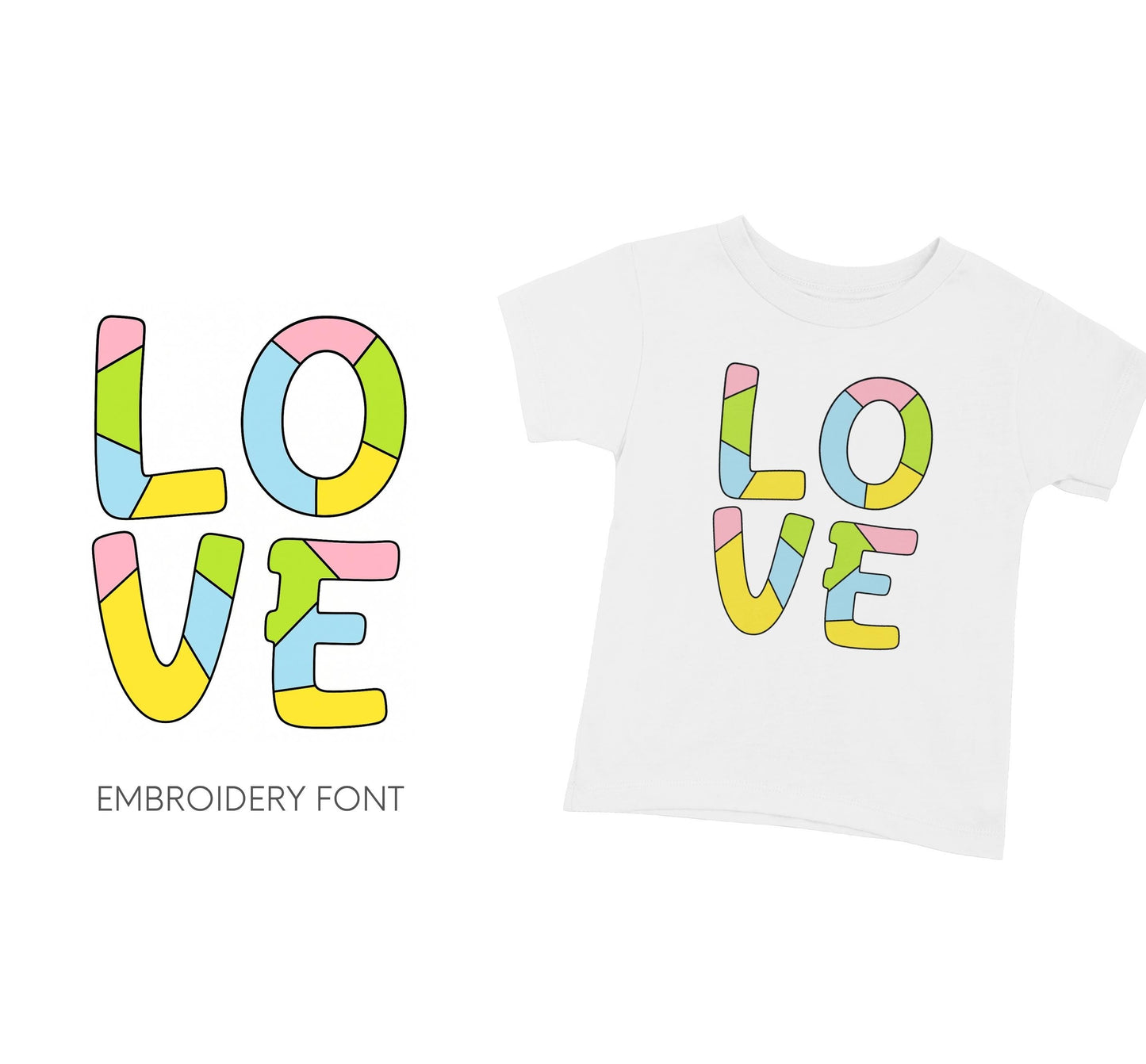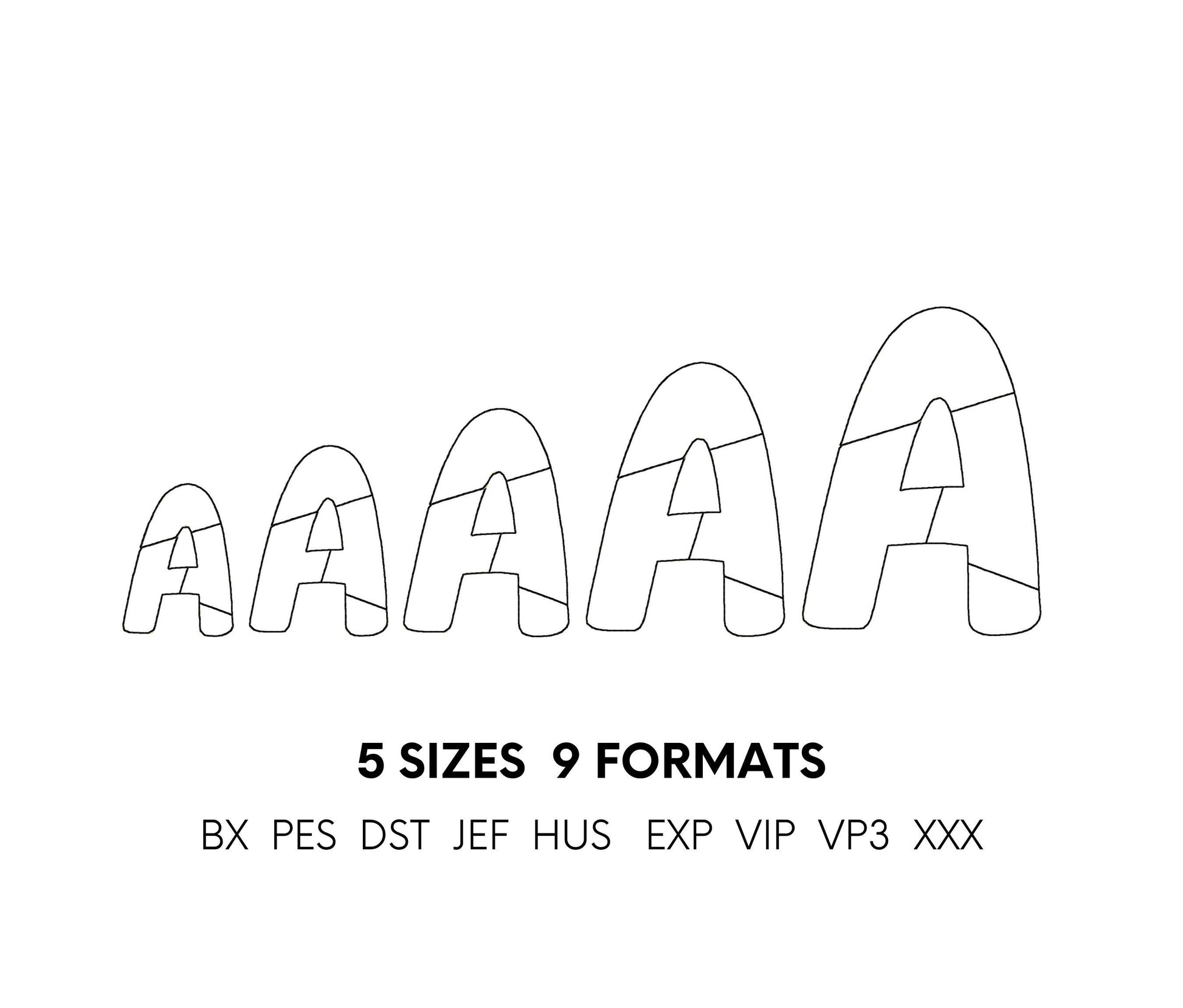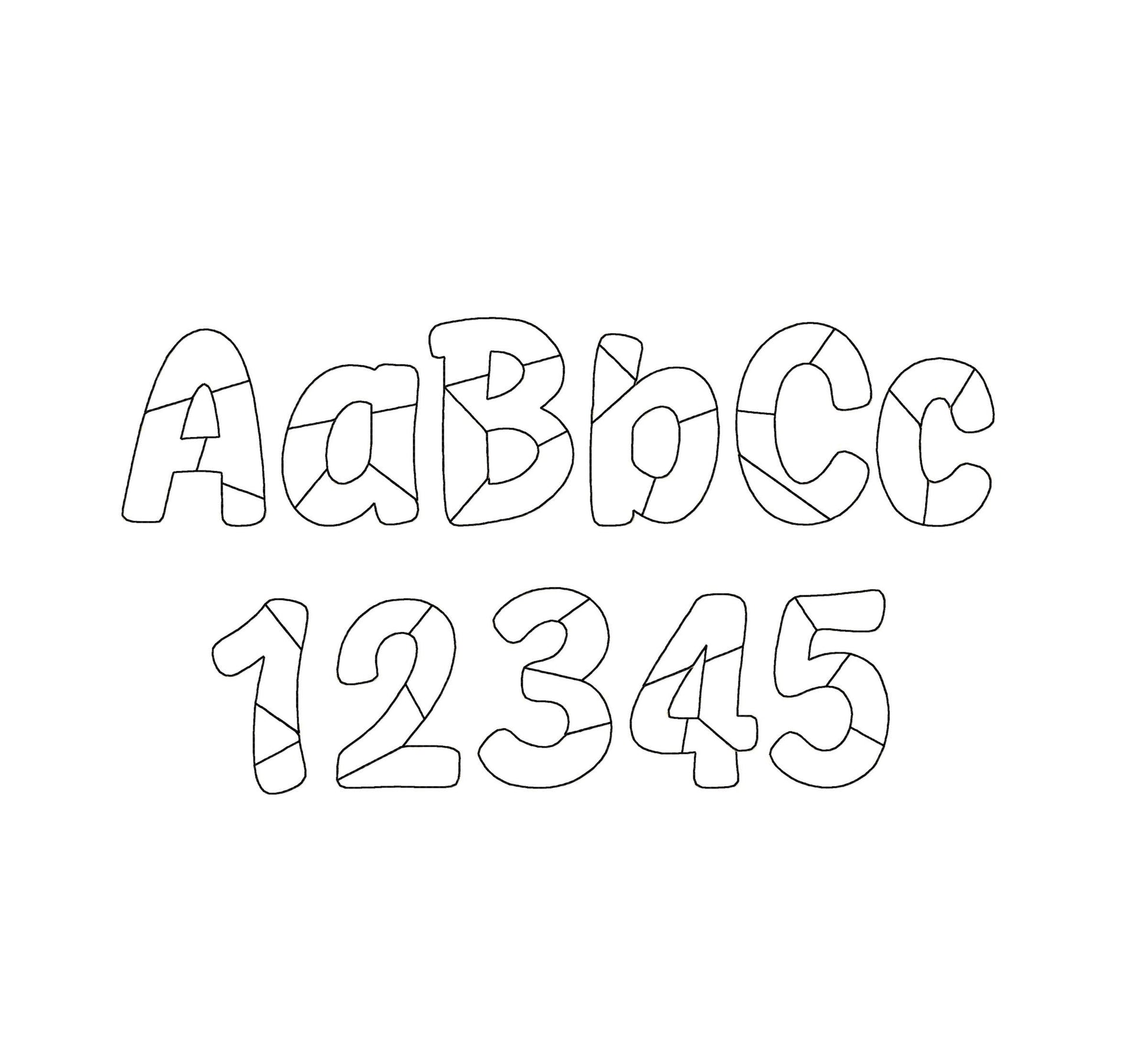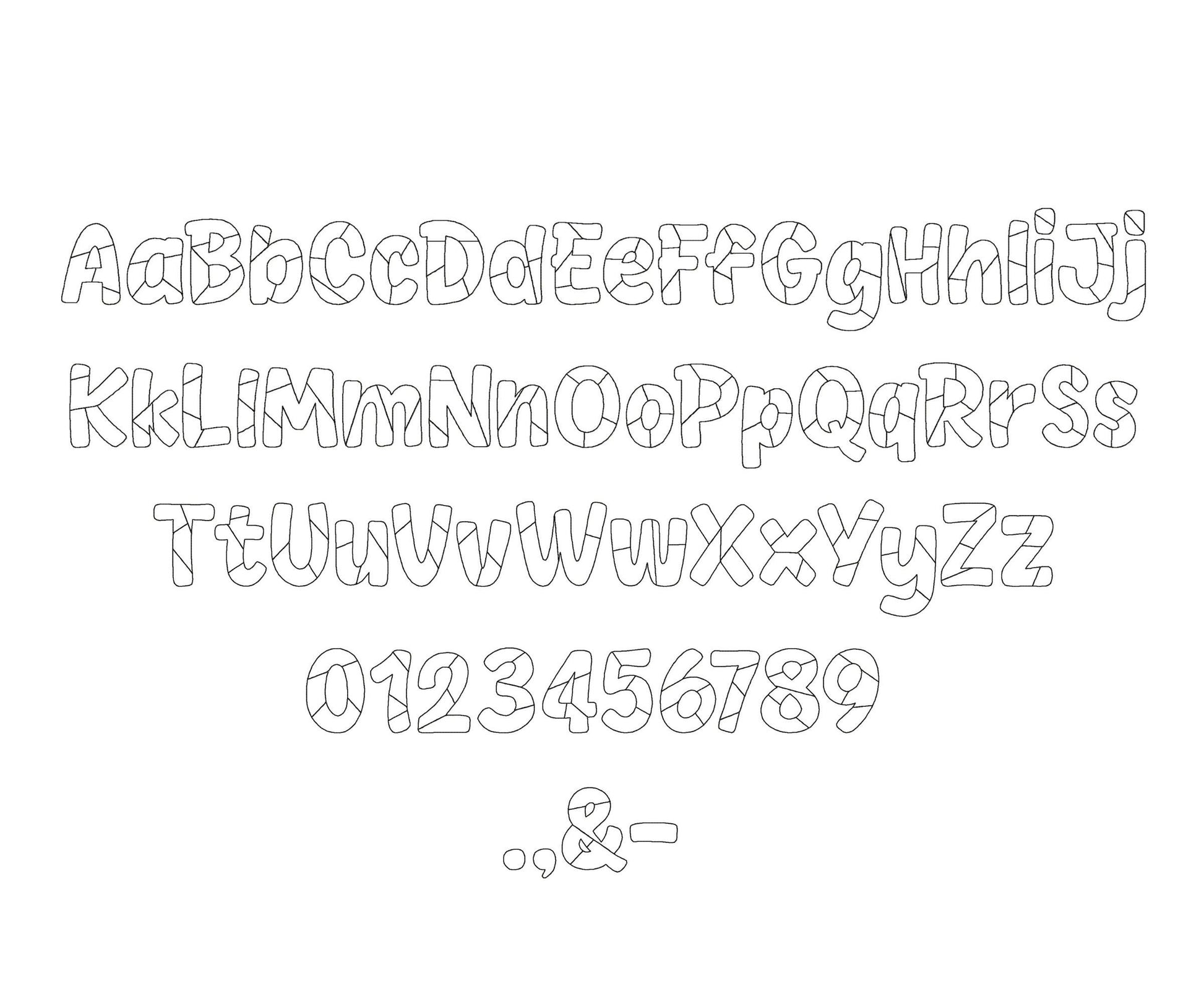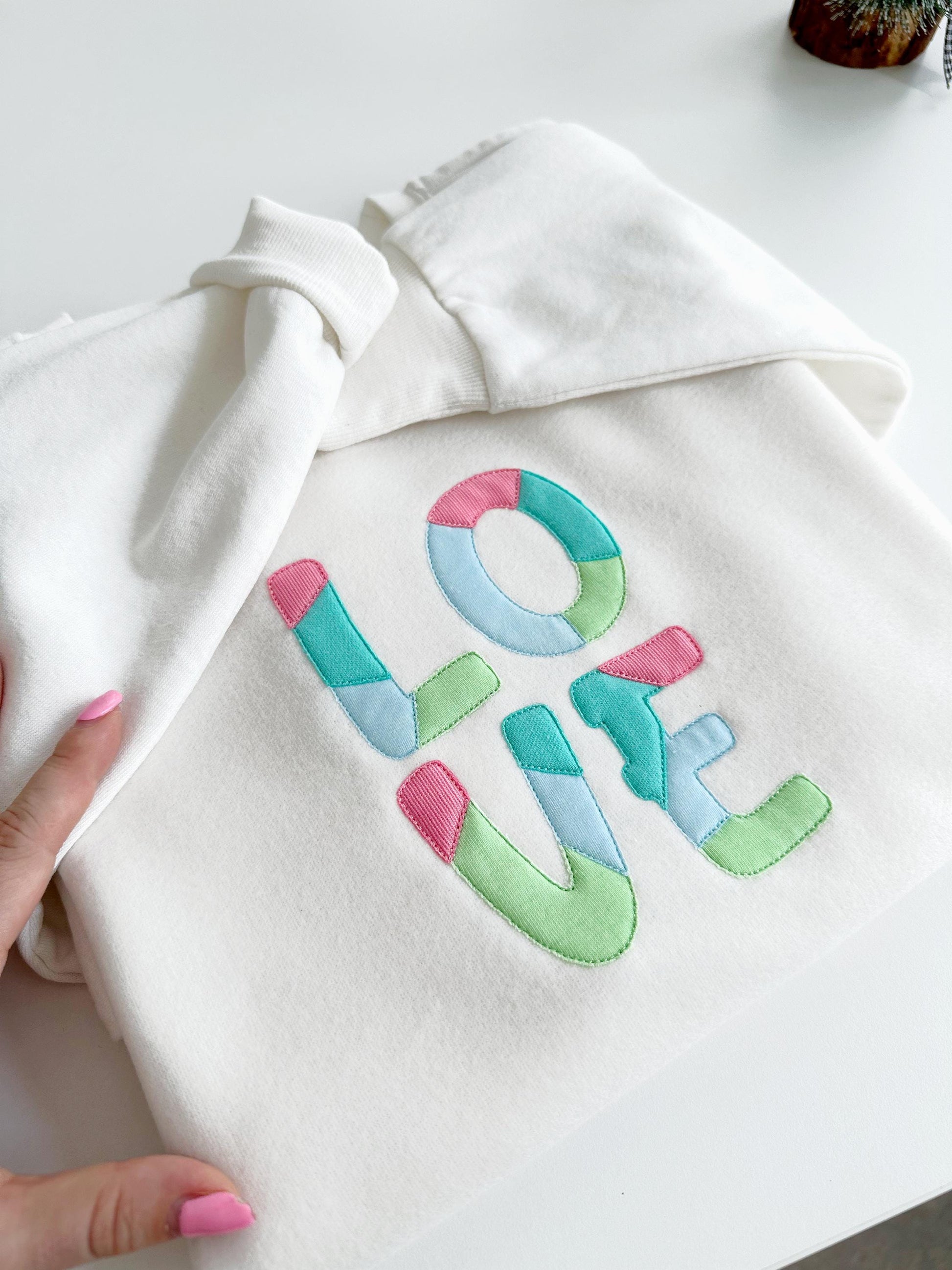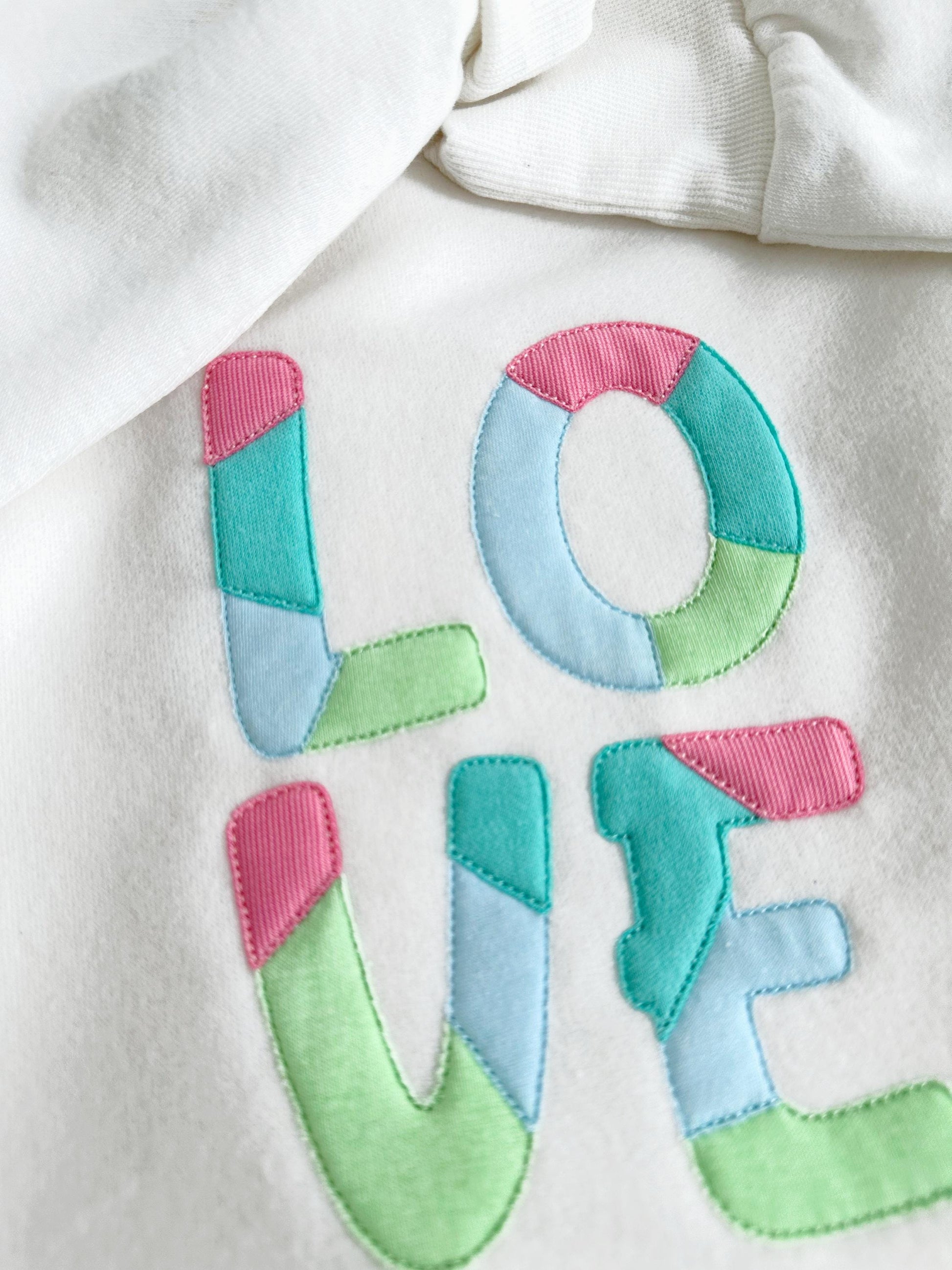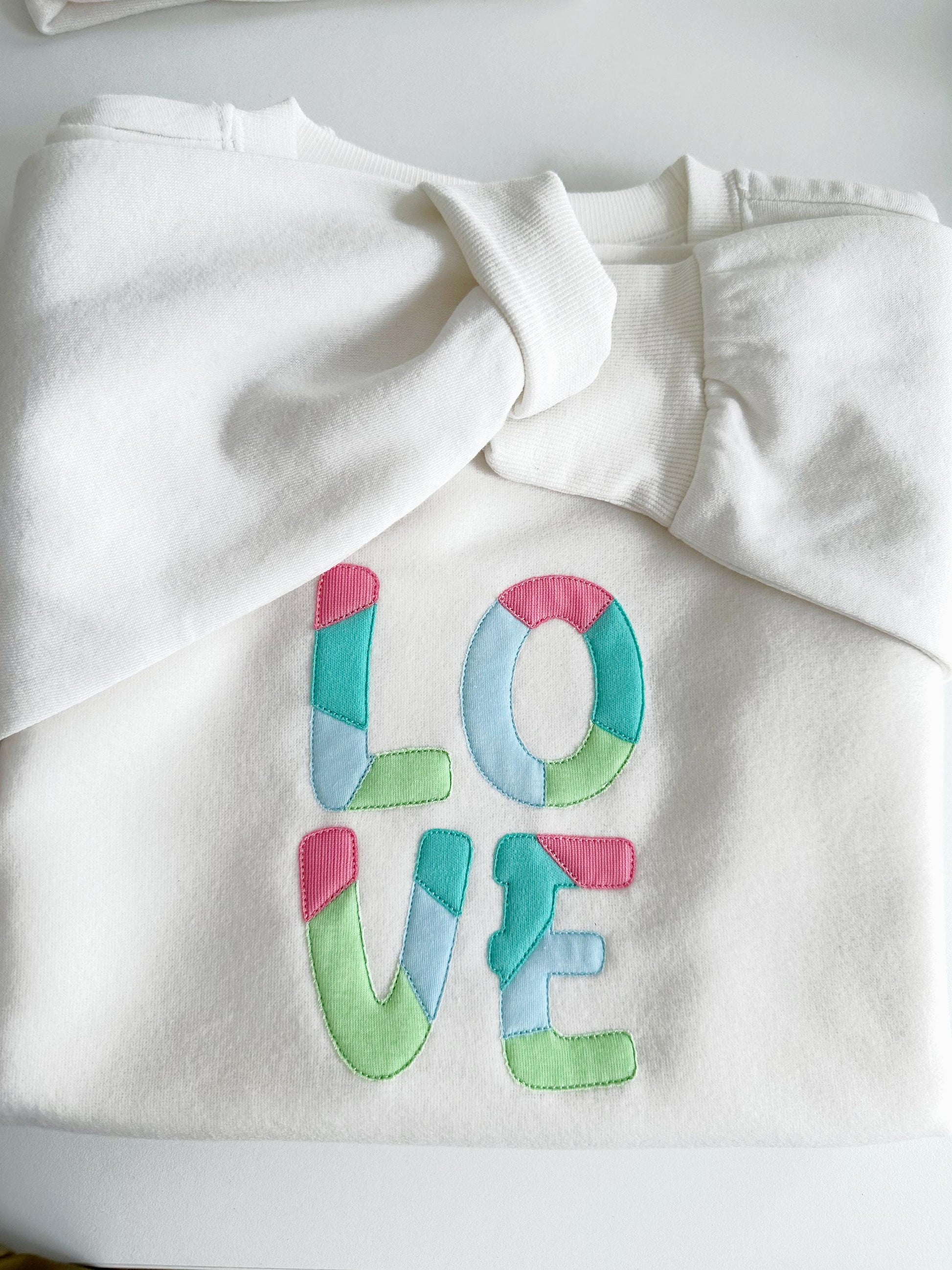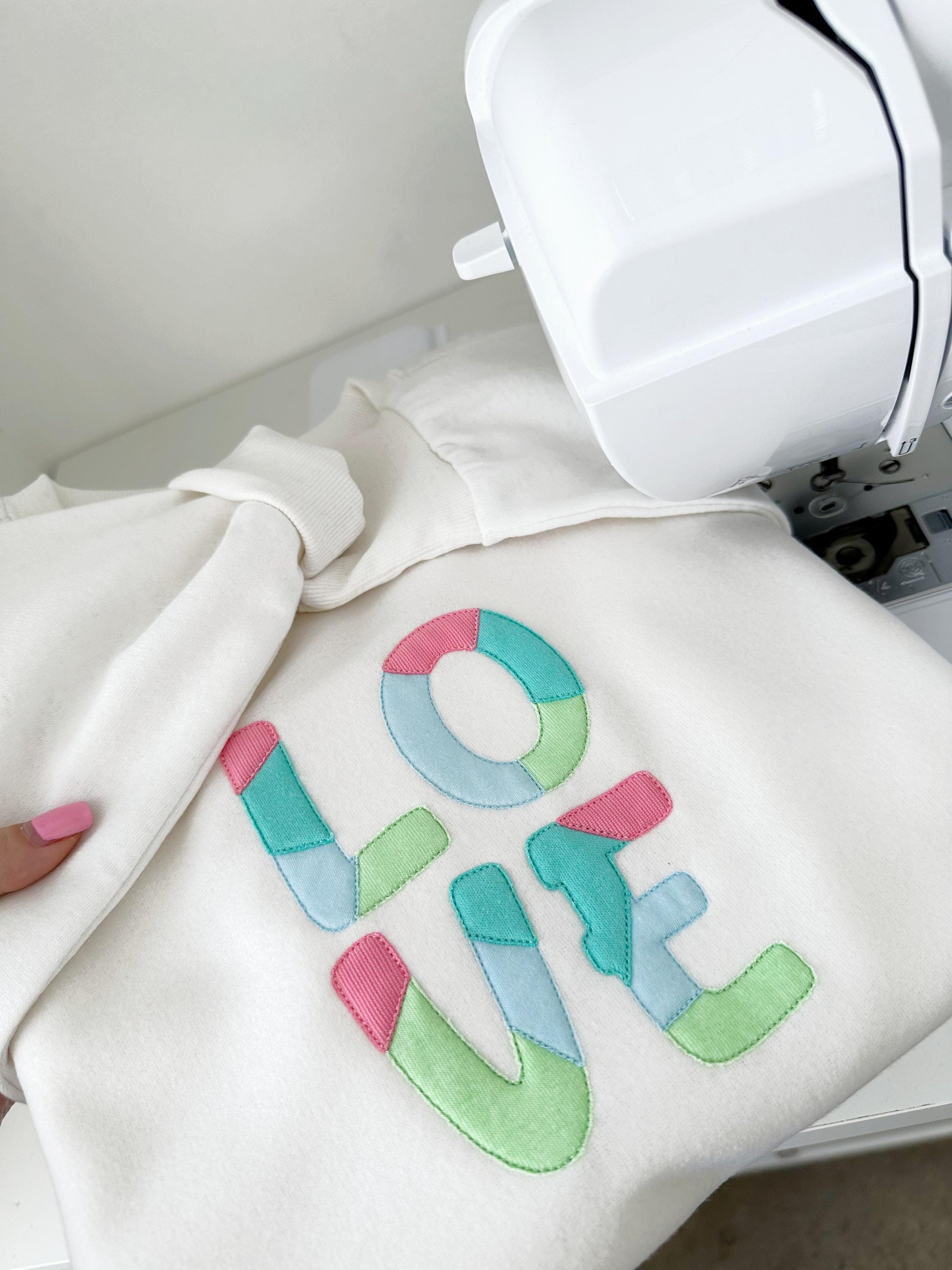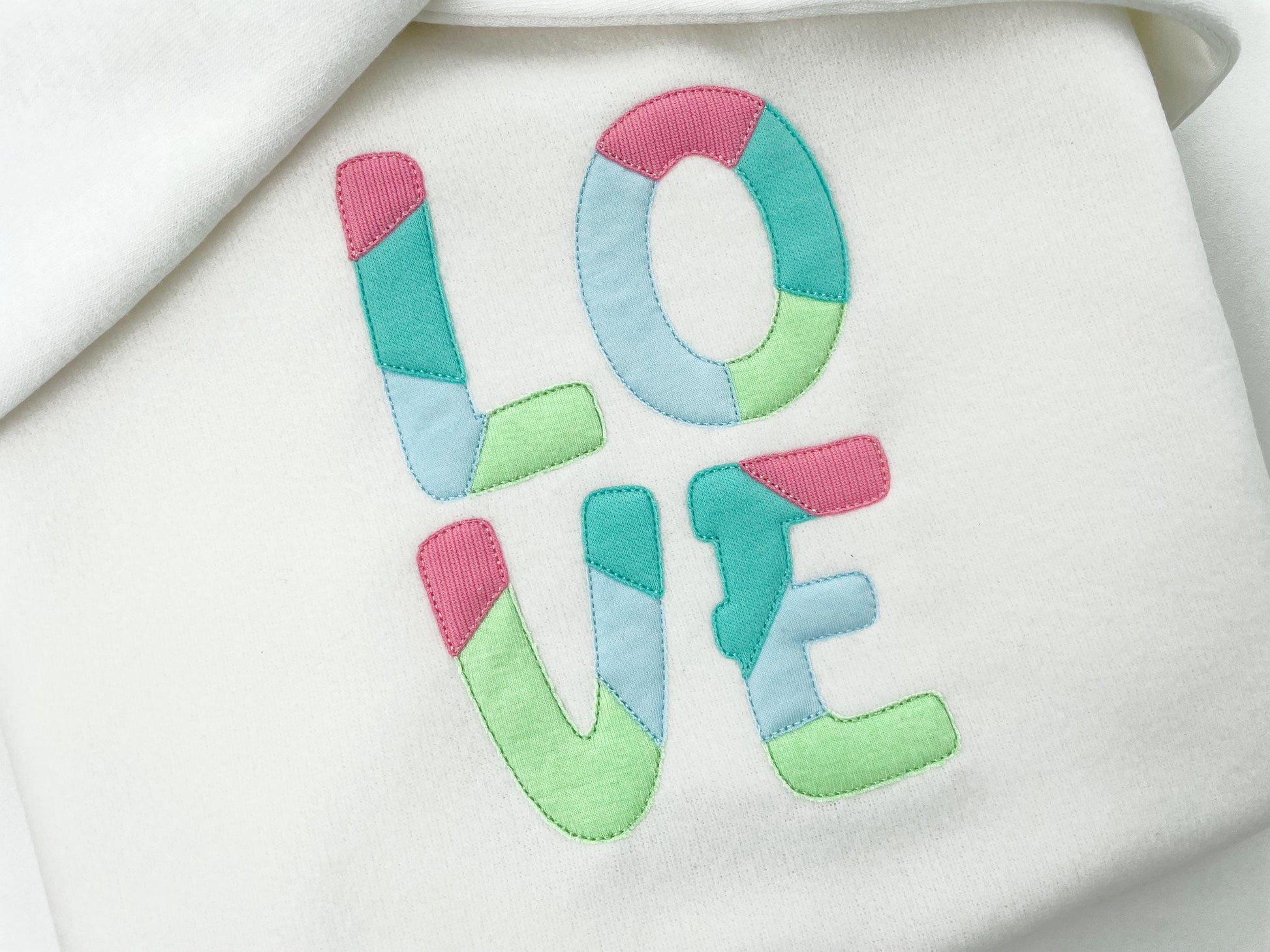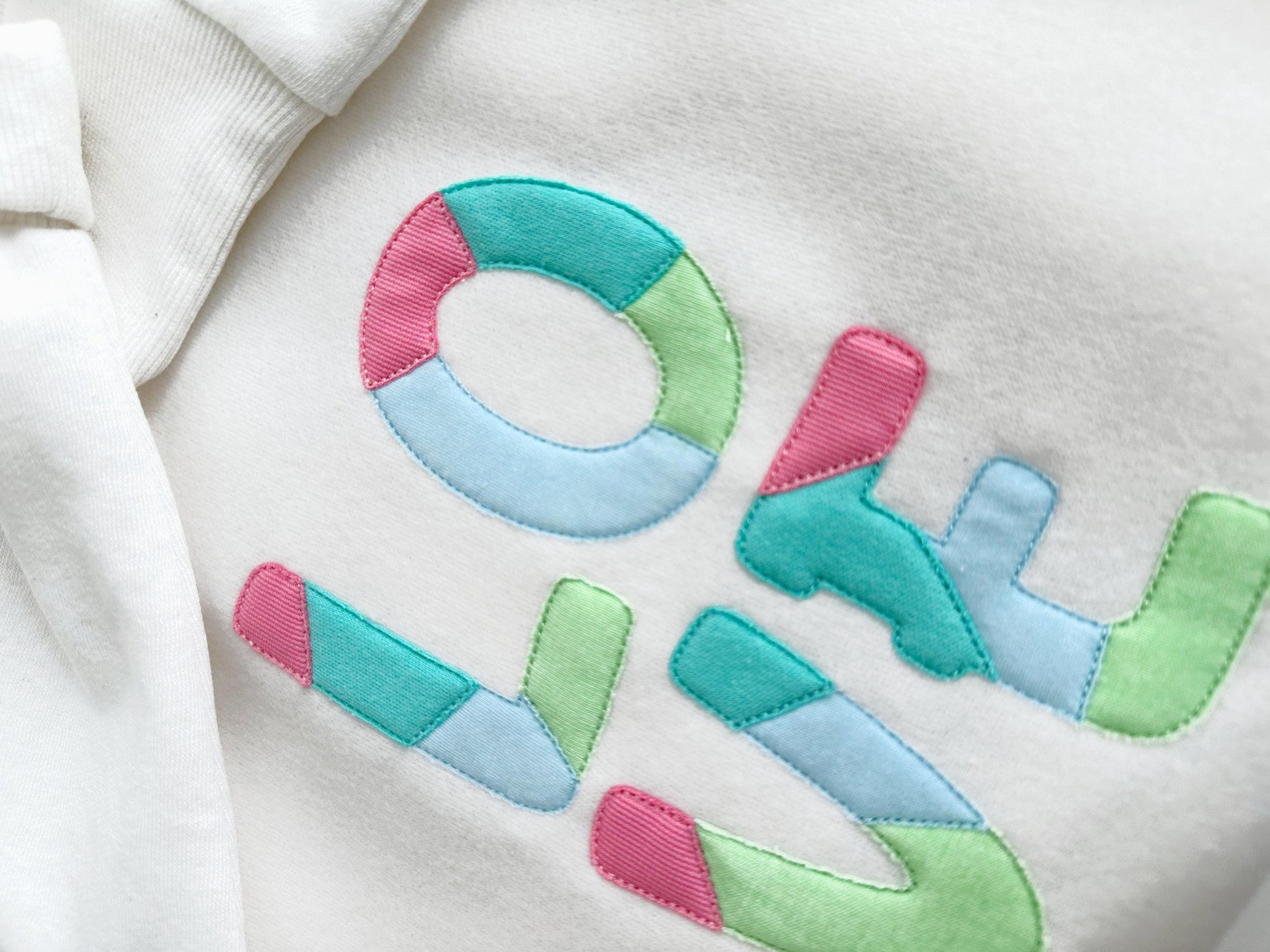
Raggedy Applique Patchwork Font
Or click to open the linkAn open-edge raggedy applique font with a bean stitch outline, great with patchwork fabrics. Cozy for names on quilts, pillows and kids' clothes.
Uppercase and lowercase letters, numbers 0 to 9 and a few punctuation marks, in one size: 4 inches. The fabric edges stay open for a soft, raggedy look.
- Raggedy patchwork applique font
- Uppercase, lowercase, numbers 0 to 9, punctuation